AESTHETIC
I’ve been collecting fonts over the last year. But there was a lot of trial and error needed to find the ones that worked well together, and could set an atmosphere while still being flexible enough to cover every use-case.
These aren’t the standard google/adobe fonts that you’ll find everywhere else – each one is special in it’s own way:
Apris
Funky, energetic, channeling the spirit of 1970s design, Apris has a real “let’s go!” kind of energy.
Gaya
Wavy, soft, and inviting, if you were writing with a pen filled with honey you might end up with something as sweet as Gaya.
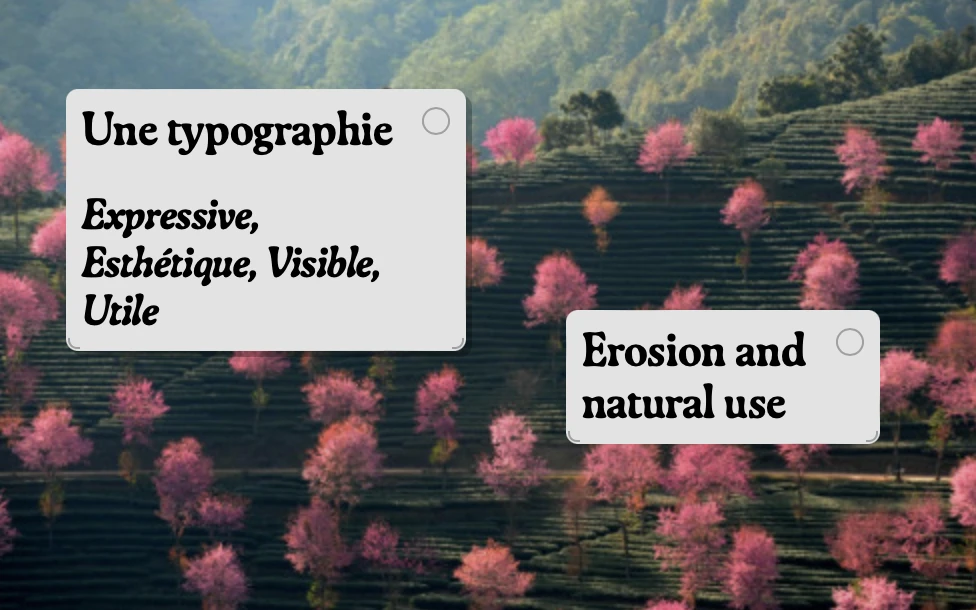
GroteskRemix
Not gonna lie, I discovered this font from the end credits of Mr. and Mrs. Smith on amazon. GroteskRemix is unlike anything else, but in the right contexts, especially on dark backgrounds, it can be really sophisticated and technical.
(p.s. don’t sleep on the ## h2 variant of GroteskRemix)
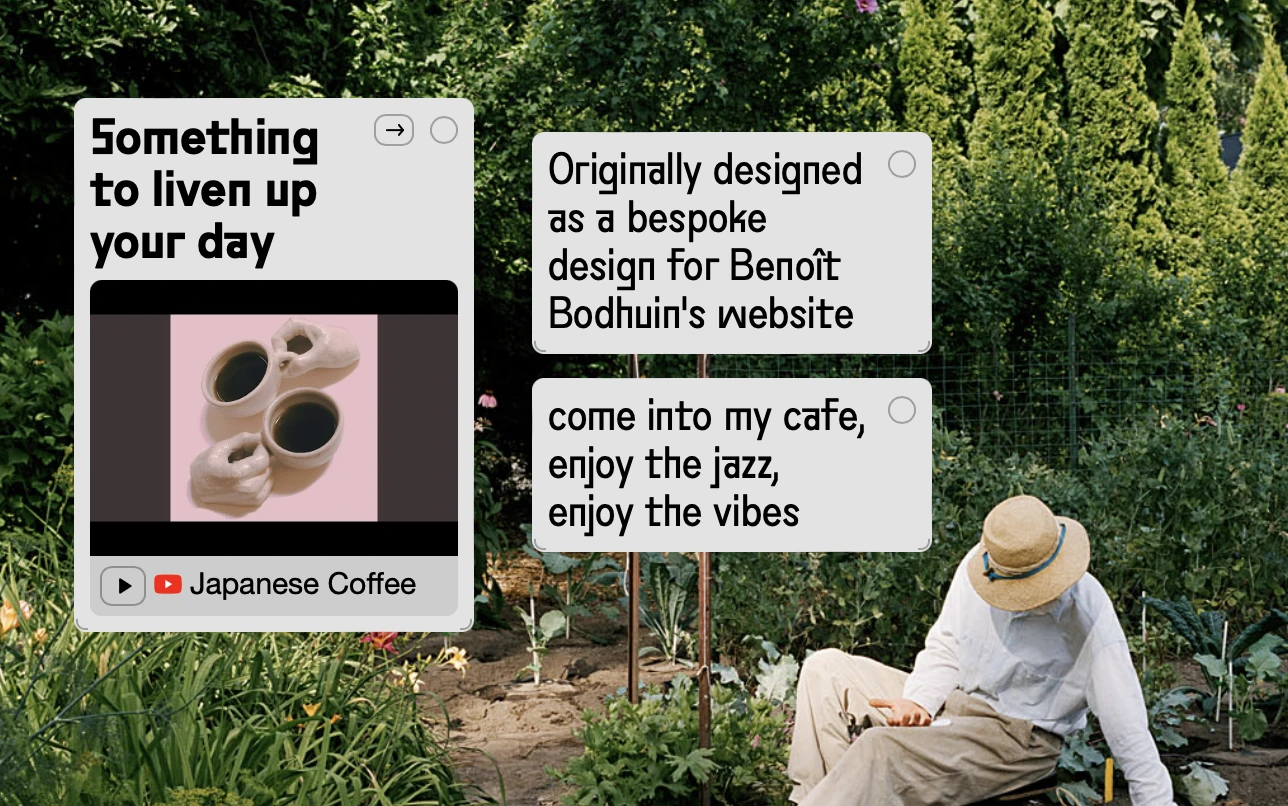
GT America
I also wanted to provide a modern, professional sans-serif font that’s ideal for use in serious planning and work spaces. It’s authoritative without being authoritarian – a surprisingly fine line in the world of fonts.
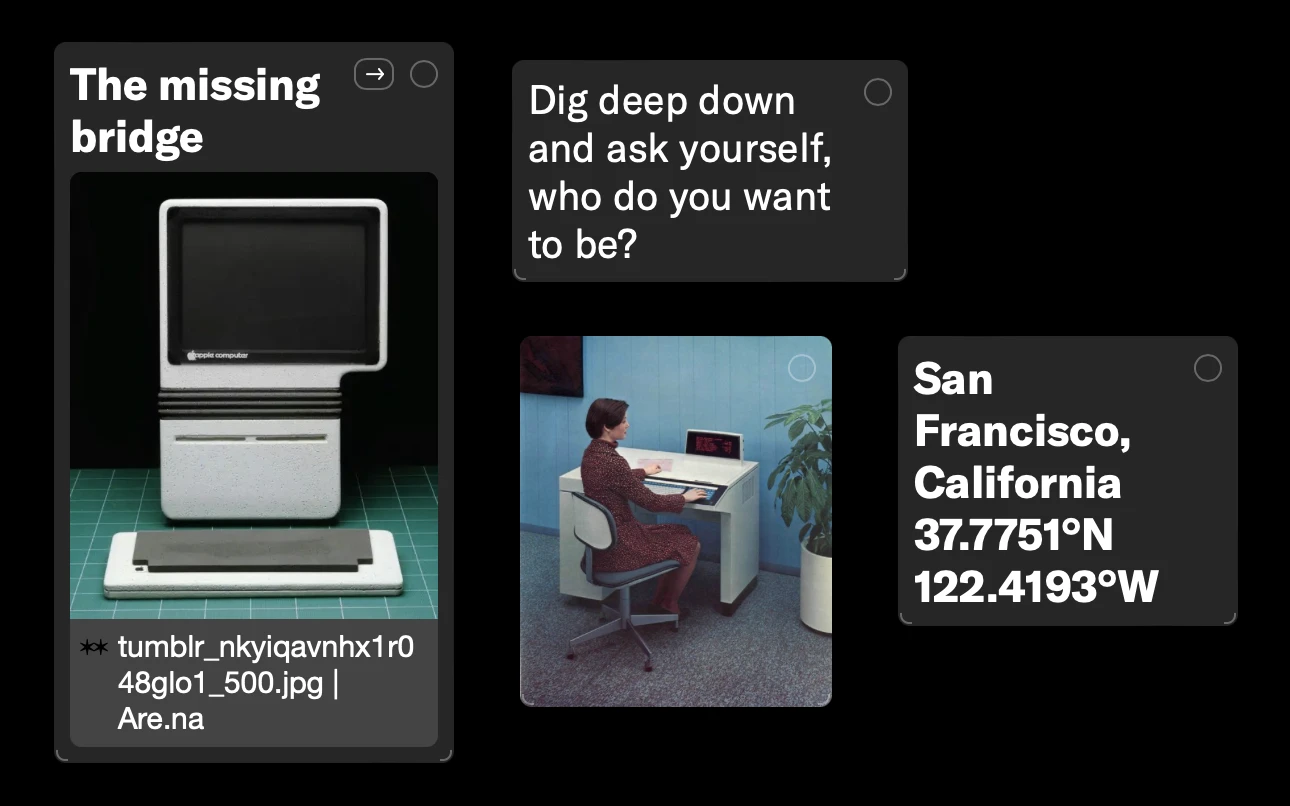
Microgramma
Technical, space-age, utopic – microgramma is from a past where people were optimistic about the potential of new technology to improve our lives, like microchips and microwaves. If you’re trying to make a better world, it’s a fun place to start.
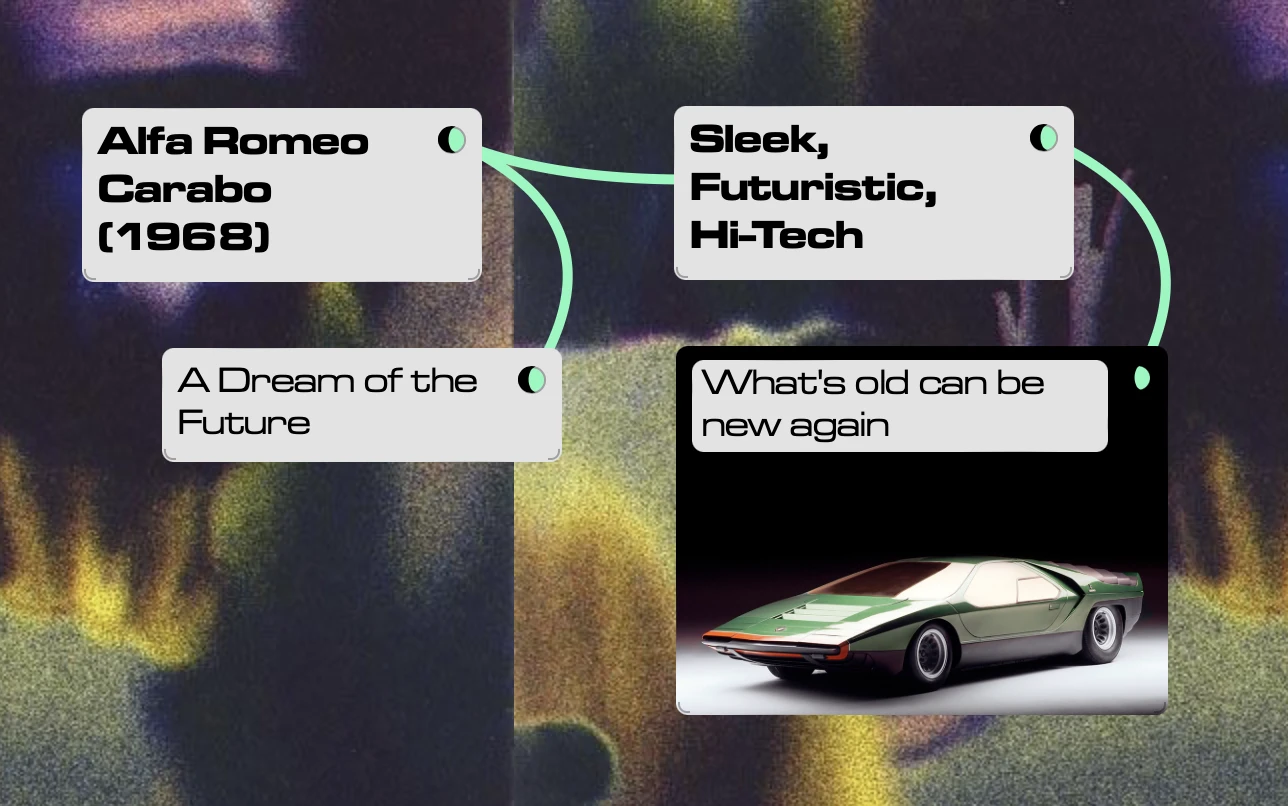
Migra
Migra has brush-like edges like the kind you’d find in ornate monastic texts – but because those edges are also geometric, it works well in modern spaces too.
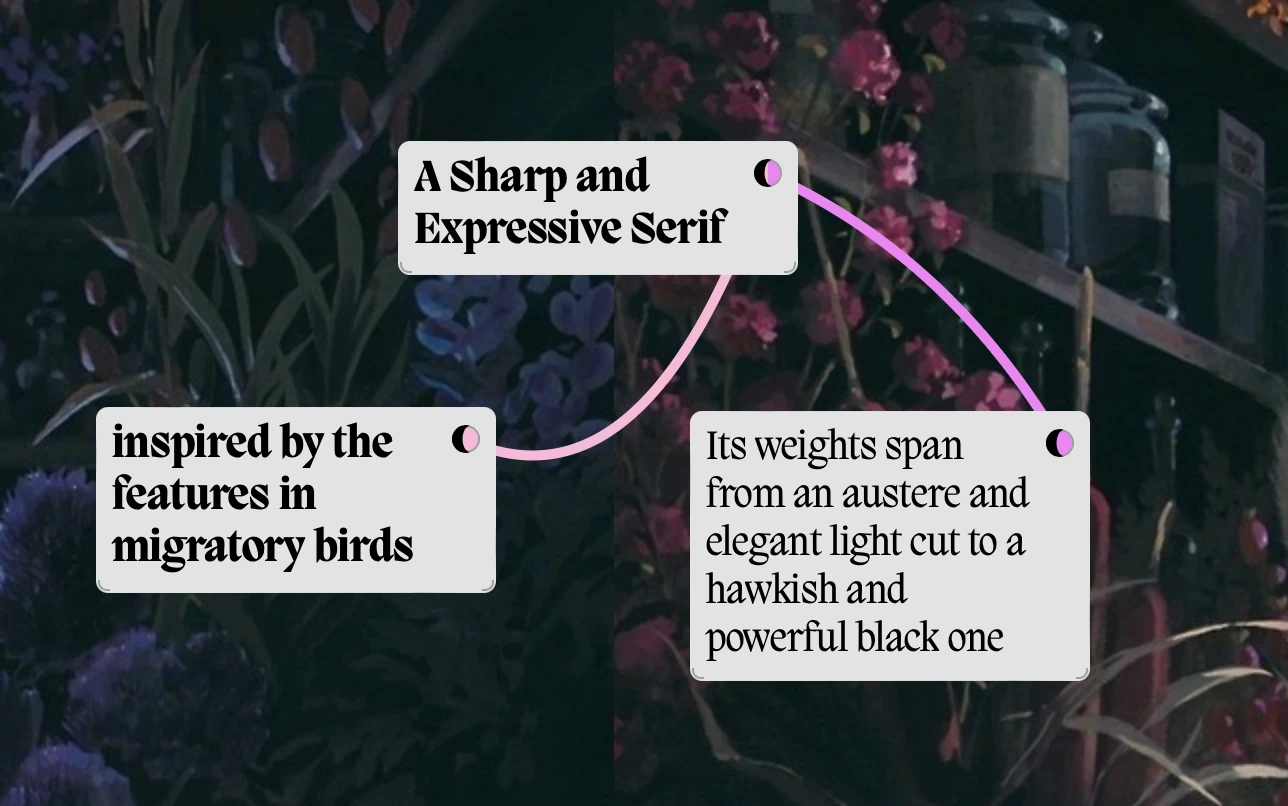
Recoleta
This is the previous/current default header font so it’s probably the most familiar. It’s still a great choice that really shines in personal spaces.
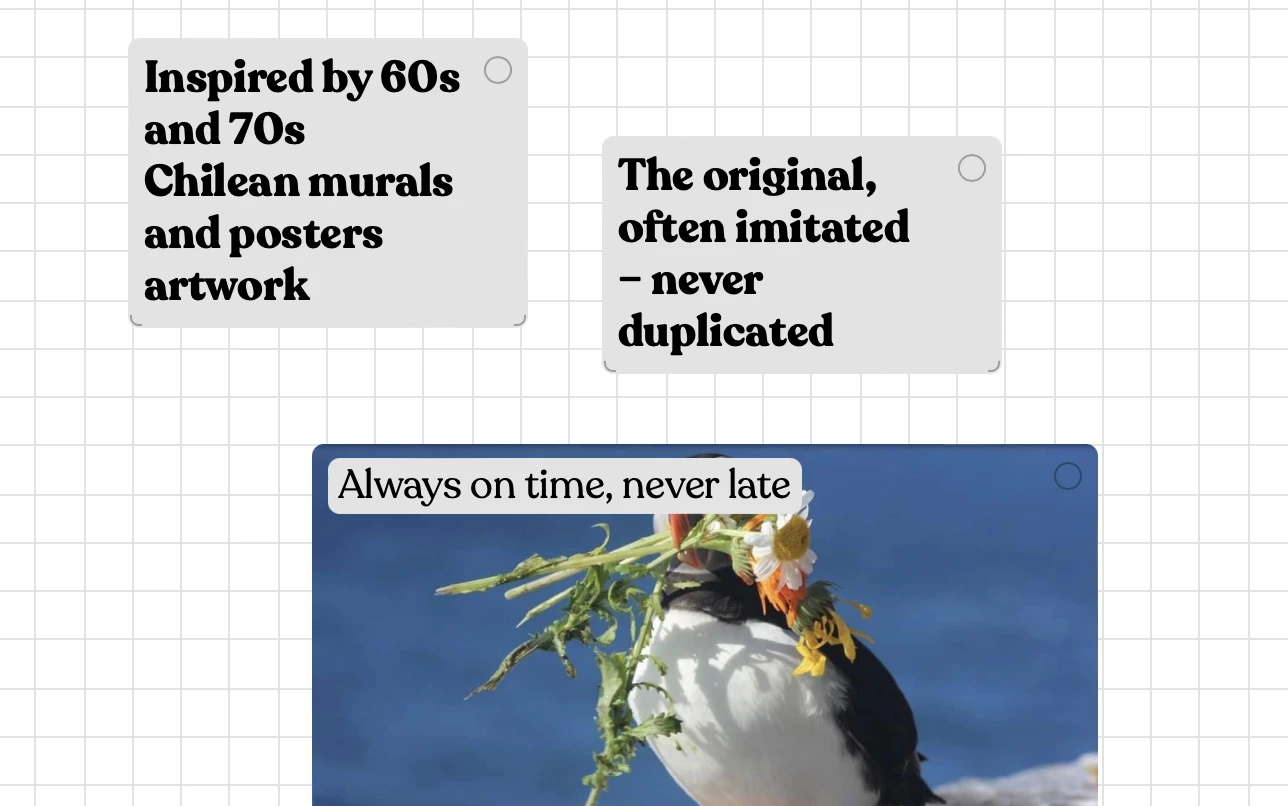
Shinka-Mono
Originally, Kinopio used a version of Osaka-Mono that I hand-customized to work better with english punctuation as it’s only font. But I eventually let it go so the app would work better for people in Asia and other non-latin countries. Shinka-Mono, designed to look like the english glyphs in Japanese fonts, is reminiscent of those experimental days.
Monospace fonts aren’t just for programmers, they’re for every creator.